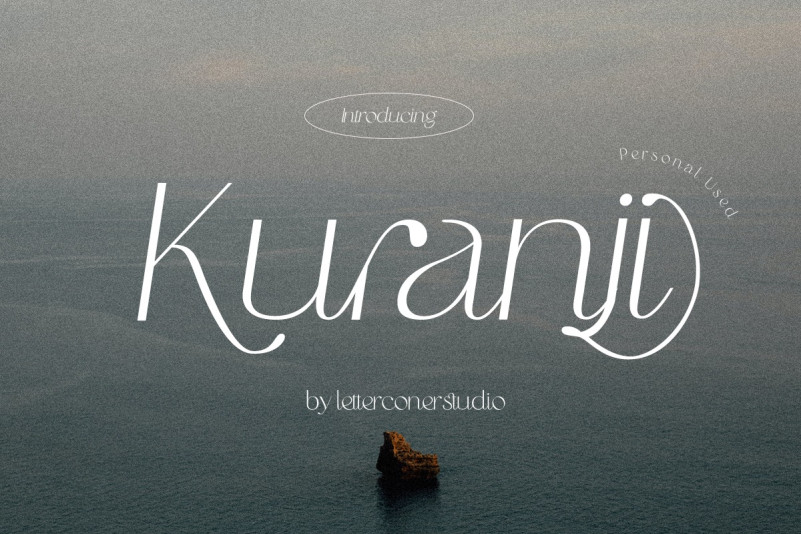
Kuranji Font
Kuranji Font, This font is perfect for stickers, retro projects, craft projects, shirts, svg designs, procreate designs, branding, blogs, logos, invitations and more!